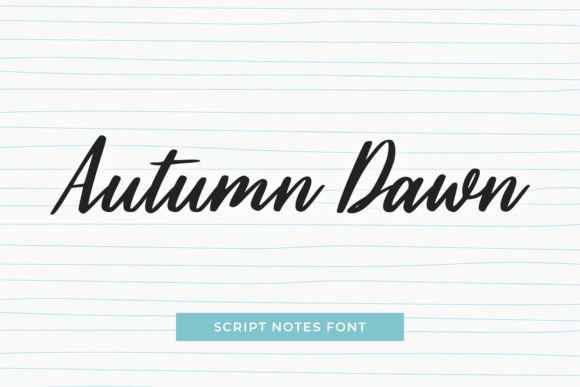
The Magic of Autumn Dawn Font: A Designer’s New Best Friend
I’ll never forget the time I was working on a project for a cozy coffee shop, and I just couldn’t find the right font to capture their warm and inviting atmosphere. The client wanted something that felt like a handwritten sign on a rustic wooden board, but everything I tried seemed either too fancy or too bland. That’s when I stumbled upon the Autumn Dawn font, and let me tell you, it was like the clouds parted and the sun shone bright! ✨
So, what makes Autumn Dawn so special? Here are a few things that I absolutely adore about this font:
- ✅ It’s incredibly versatile and can be used for a wide range of design projects, from branding and packaging to invitations and social media graphics.
- ✨ The natural, handwritten style gives it a unique and personal touch that’s hard to achieve with more traditional fonts.
- 🔥 It’s easy to read, even at smaller sizes, which makes it perfect for body text or captions.
Of course, no font is perfect, and there are a few small quirks to keep in mind:
- ⚠️ Some of the letters might be a tad too whimsical for very formal or corporate designs. For example, the lowercase “q” and “y” have a distinctive swirl that might not be suitable for every project.
- 🤔 The font doesn’t have a huge range of weights, so if you need to create a super bold or super light version, you might be out of luck.
The Story Behind Autumn Dawn Font
According to the font’s creators, Autumn Dawn was inspired by the warm, golden light of sunrise on a crisp autumn morning. They wanted to capture the cozy, inviting feeling of this moment in a font that would be perfect for creative projects and everyday designs. Whether or not you believe the story, one thing is certain: Autumn Dawn font is a true gem! 🌞